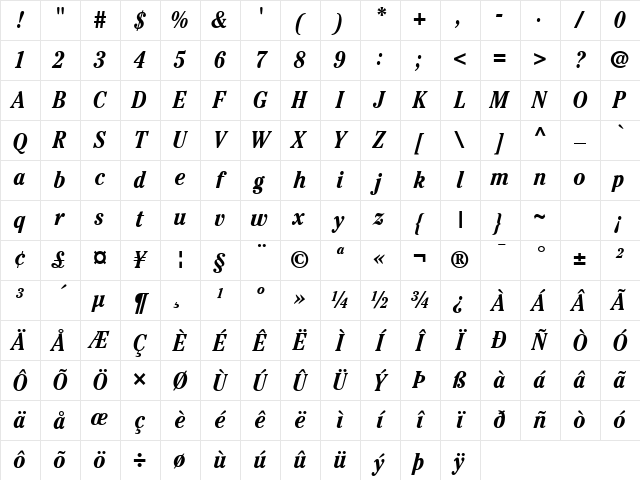
Complete Cheltenham Condensed SSi Bold Condensed Italic glyph index. Displaying only characters natively supported by Cheltenham Condensed SSi Bold Condensed Italic font.
Cheltenham Condensed SSi is a composed and adaptable typeface that performs quietly and consistently across a wide range of design contexts. The slanted form adds forward momentum and visual energy. Its bold stroke weight gives it real presence on the page. Its narrow stance lets it pack a punch even in space-constrained designs.